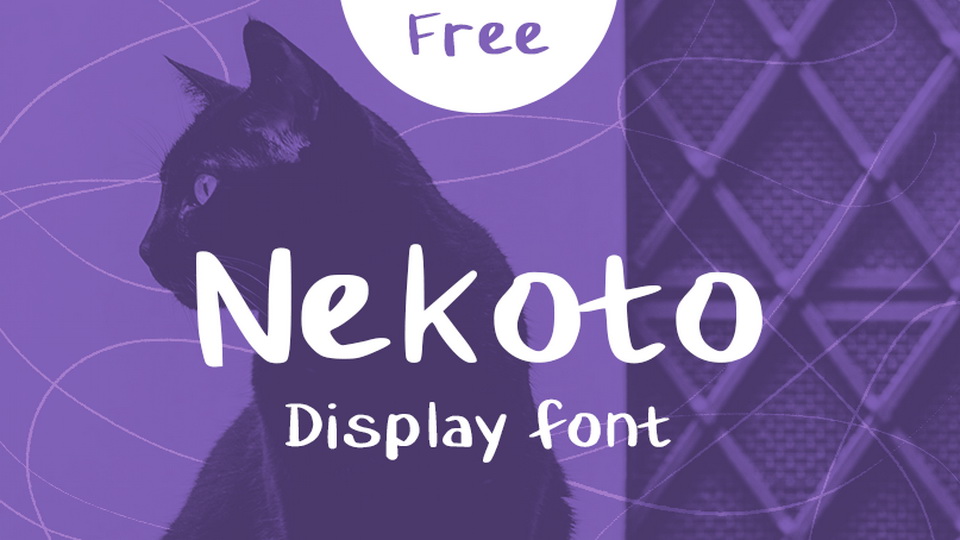
Download Nekoto font, a simple and cute handwritten typeface. Nekoto is perfect for any design that needs a handwritten feel, such as crafts, notes and quotes, logos and branding.
Designer: Laura Philbert